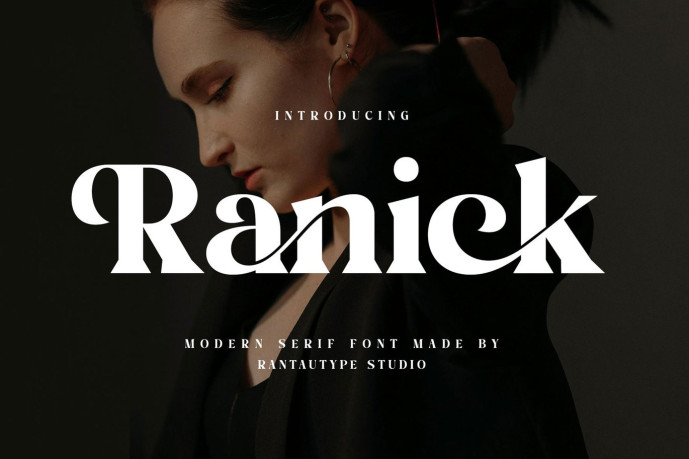
Ranick Font
Designer: RantautypeStudio
Ranick Font is a modern serif font created by the studio rantautype. Ranick is the ideal choice for any creative endeavor, from creating modern lifestyle designs such as logos, headlines, covers, branding, invitations, wedding motifs, displays and magazines, social media posts, advertisements, printed quotes, product packaging, corporate branding, product designs, labels, photography, watermarks, special events, and any other project.